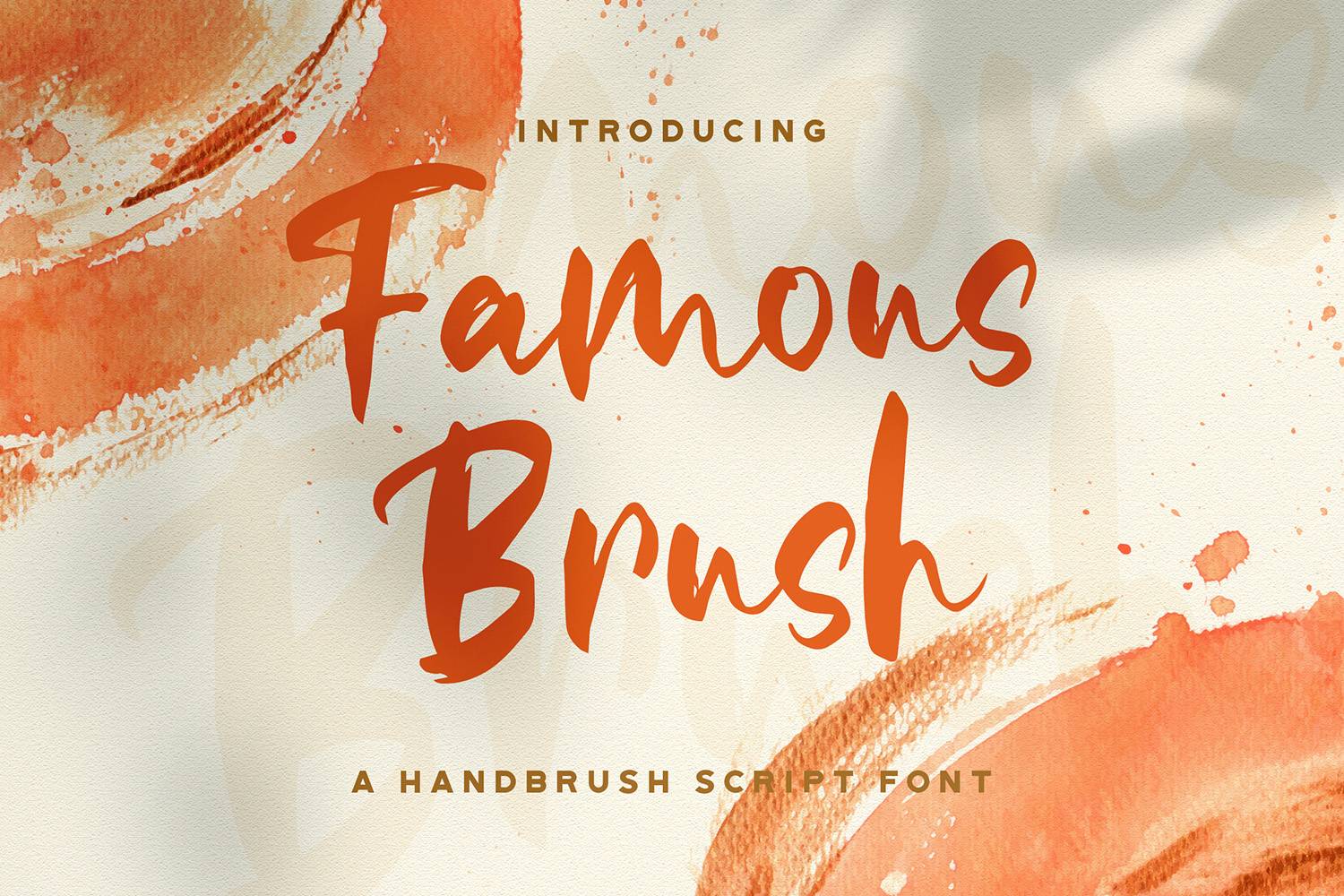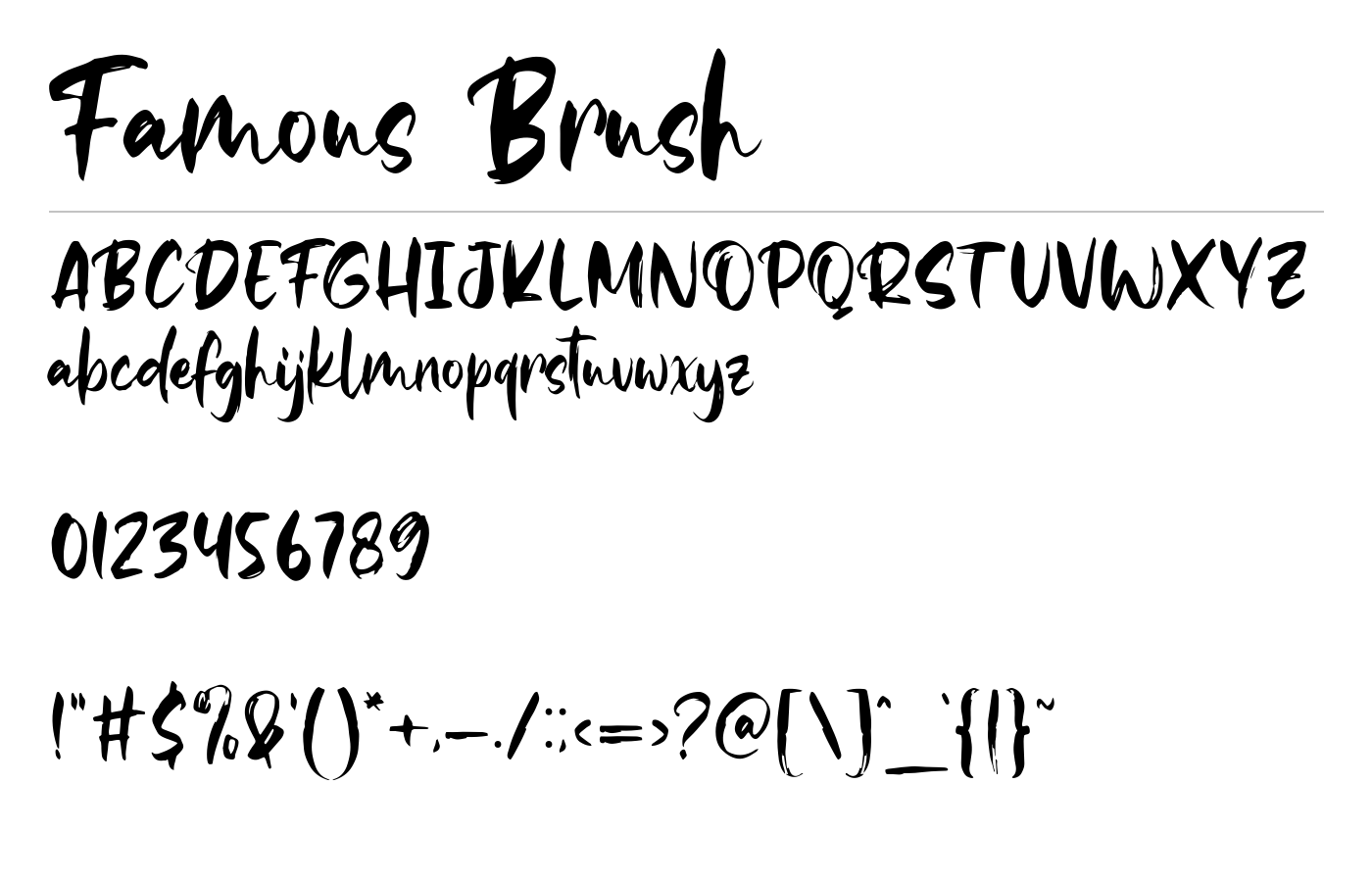
Famous Brush Font is a bold and dynamic brush script that captures a lively, hand-painted aesthetic with its textured, slightly uneven strokes. Its casual and energetic style makes it perfect for creative projects, branding, and headlines that aim to stand out with a modern, artistic flair. This font works well for fashion, lifestyle, and poster designs where a personal, handcrafted feel is desired.
Famous Brush Font
About Famous Brush Font
| Font family | Famous Brush Font |